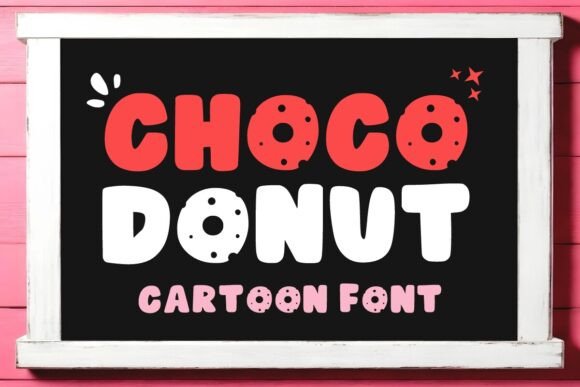
How Choco Donut Adds Bold Character to Web Design Projects
I’ll be honest—when I first saw Choco Donut, I was mid-project, searching for a display font that could bring a playful yet polished edge to a winter microsite. As a web designer, I’ve tested dozens of cartoon-style typefaces, but most feel either too childish for a brand or too quirky to read online. Choco Donut immediately felt different. It’s a fun and bold cartoon display font that walks a fine line between whimsy and professionalism. I decided to drop it into a real website layout to see how it performed—and the results surprised me.
Choco Donut for Holiday Branding and Winter Web Projects
The first thing I tested was Choco Donut as a headline font for a seasonal campaign landing page. The brand I was working with needed a wintery, cozy feel without slipping into cliché snowflake visuals. Choco Donut’s thick strokes and rounded letterforms gave the hero section an instant personality lift. It felt festive without screaming "holiday" in a generic way. For web designers building winter branding projects, this Choco Donut display font offers that rare balance: it’s bold enough to stand out on a light background, yet soft enough to pair with frosty color palettes. I used it for the main headline and a short subheading, and the visual weight anchored the entire page.
Using Choco Donut for Product Packaging Mockups on a Boutique Site
Later in the same project, I needed to mock up product packaging for an online store. The client sells artisanal chocolate boxes, and Choco Donut turned out to be a perfect match for their packaging labels. Because it’s a cartoon display font with a hand-drawn feel, it added a custom, crafty vibe to the design. I placed the font over a dark chocolate background, and the white version popped clearly without losing legibility. For small e-commerce brands looking to elevate their product packaging visuals, Choco Donut delivers that bespoke look without requiring an illustrator. It works especially well for quotes and short phrases on labels, posters, or even t-shirt graphics.
How Choco Donut Improves Call to Action Buttons and Headers
One of my biggest concerns when using bold display fonts on a website is readability—especially in interactive elements like call-to-action buttons. I tested Choco Donut in a bright, rounded button for a "Shop Winter Collection" prompt. The font’s thick, even strokes held up well at button size, even on mobile. On desktop, it gave the CTA a friendly, approachable feel that invited clicks. For headers, I noticed that Choco Donut created clear visual hierarchy. When paired with a lighter sans serif for body copy, the difference was immediate: the display font drew the eye first, then guided scrolling naturally. If you’re designing a landing page where the headline needs to stop the scan, Choco Donut is a strong candidate.
Choco Donut Readability on Mobile and Image Overlays
No web design test is complete without checking mobile responsiveness. I previewed Choco Donut in a hero image overlay—white text on a snowy landscape photo. The bold cartoon style actually improved contrast because the letters are wide and solid. On a small screen, the font didn’t break up or lose detail. I recommend keeping Choco Donut for short phrases or single words in image overlays, as thin serifs or script fonts might get lost. For longer quotes or taglines, you can still use it, but leave generous spacing and avoid placing it over busy textures. In my tests, Choco Donut stayed readable at 24px for small labels, though it shines best at 36px and above for headings.
Font Pairing Choco Donut with Sans Serif for Clean Web Layouts
I paired Choco Donut with a classic, neutral sans serif (think open geometric shapes) for body copy. The combination felt immediately balanced: the display font added character while the sans serif kept the overall design grounded and professional. For web designers building brand identities, this pairing is versatile enough for both a creative portfolio site and a coaching website. The contrast between Choco Donut’s cartoon edges and a clean sans serif creates a visual tension that feels modern, not messy. I also experimented with a thin serif for editorial-style blog headers, but the result was less cohesive. Choco Donut works best with simple, uncluttered counterparts.
Where Choco Donut Fits in a Digital Brand Identity
After a few rounds of testing, I now see Choco Donut as a go-to display font for projects that need a touch of warmth and humor. It’s not a font for long body text—that’s not its job. But for hero sections, logo accents, product labels, invitation previews, and social media graphics, it performs beautifully. In my web design workflow, I’ll reach for Choco Donut when the brand voice is friendly, bold, and slightly nostalgic. It suits winter and holiday themes naturally, but its cartoon versatility also works for children’s content, creative agencies, or any brand that wants to say “we don’t take ourselves too seriously—but we design well.”
If you’re building a boutique online store, a portfolio homepage, or a promotional landing page for a seasonal event, give Choco Donut a try in your mockups. Drop it into a headline, see how it reacts with your color palette, and watch your layout gain instant personality. For a display font that blends fun with function, it’s a solid choice.